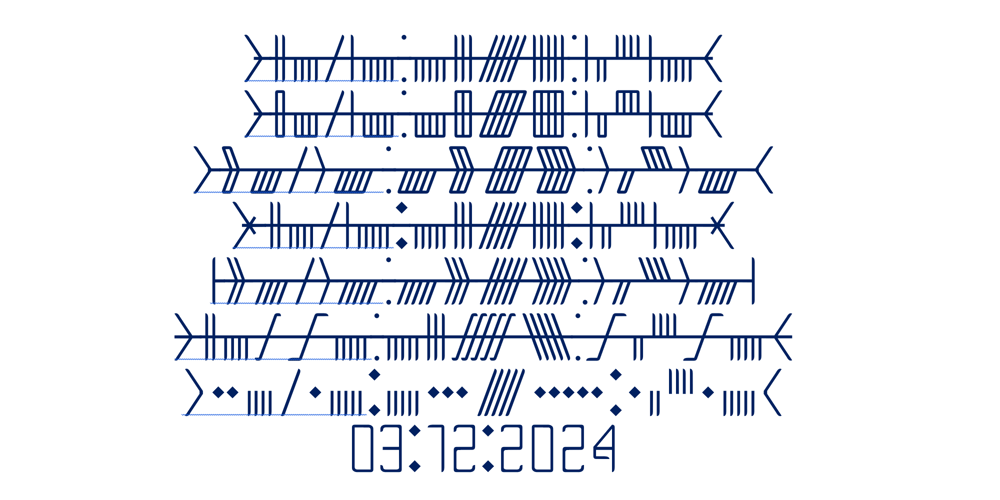
Ongunkan Ogham 4 Font Family was designed by Osman Nuri ALKAN and published by Runic World Tamgacı. Ongunkan Ogham 4 contains 1 styles and family package options. This font is a Latin-based, Unicode version of a variant of the Ogham alphabet used to write the Old Irish language. It can be used on Latin keyboards and Ogham virtual keyboards. Ogham (/ˈɒɡəm/ OG-əm, Modern Irish: [ˈoː(ə)mˠ]; Middle Irish: ogum, ogom, later ogam [ˈɔɣəmˠ]) is an Early Medieval alphabet used primarily to write the Early Irish language (in “orthodox” inscriptions of the 4th to 6th centuries AD) and the later Old Irish language (the scholastic ogham of the 6th to 9th centuries). There are about 400 surviving orthodox inscriptions on stone monuments in Ireland and western Britain, the largest of these in southern Munster. The largest number outside Ireland is in Pembrokeshire in Wales. The vast majority of inscriptions consist of personal names. According to the High Medieval Bríatharogam, the names of various trees can be assigned to separate letters. For this reason, the ogam is sometimes known as the Celtic tree alphabet. The ogam or ogham The etymology of the word remains uncertain. One possible origin is from the Irish og-úaim ‘point seam’, referring to the seam formed by the tip of a sharp weapon.